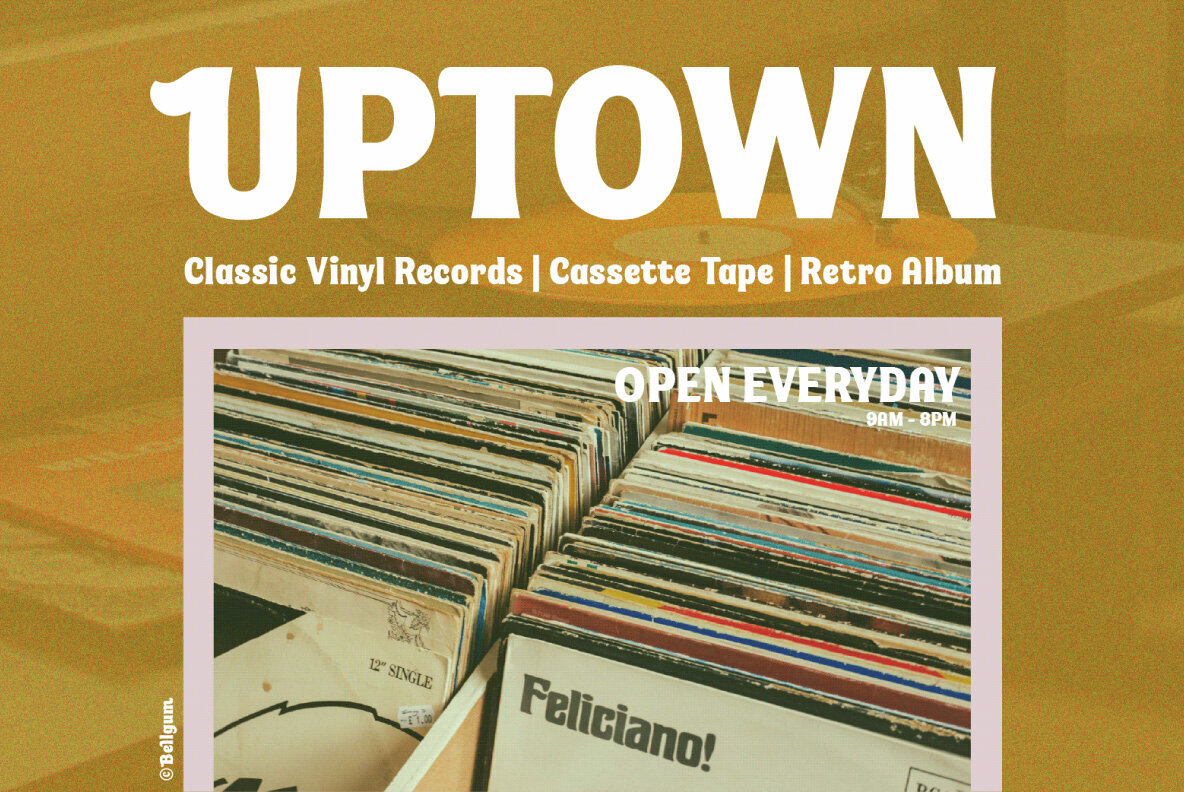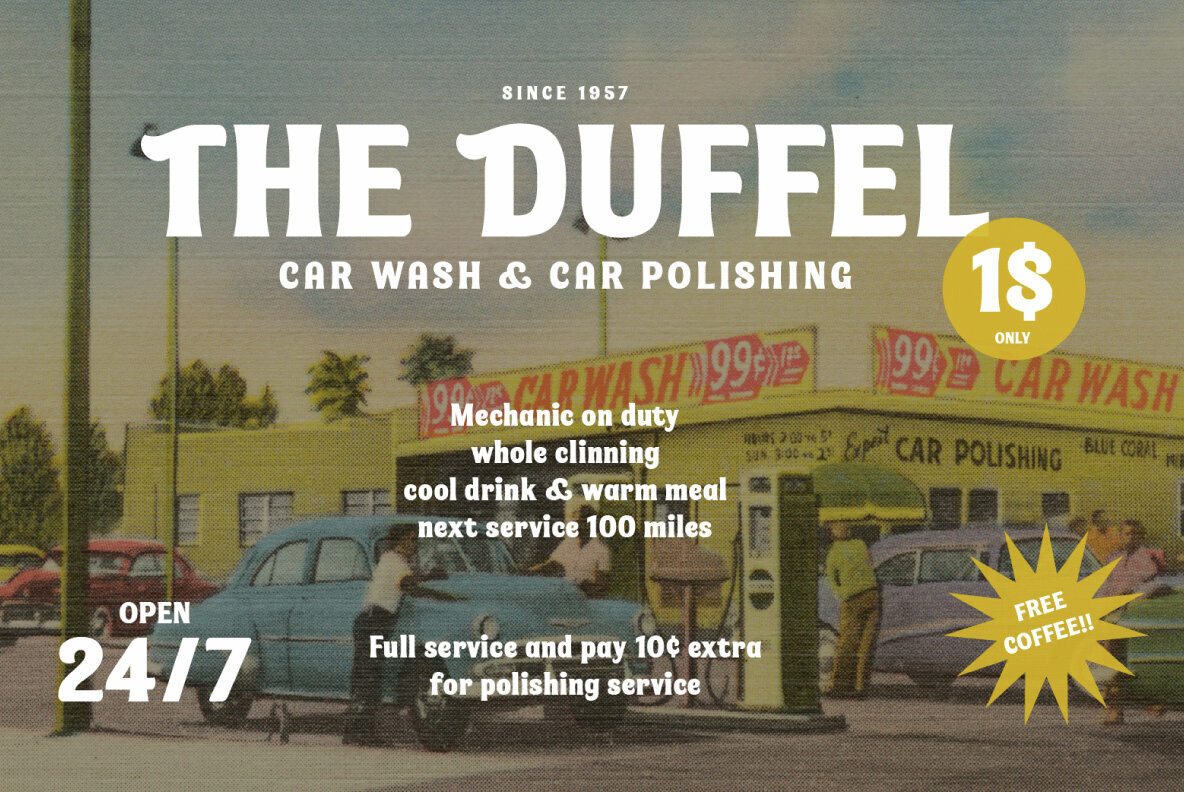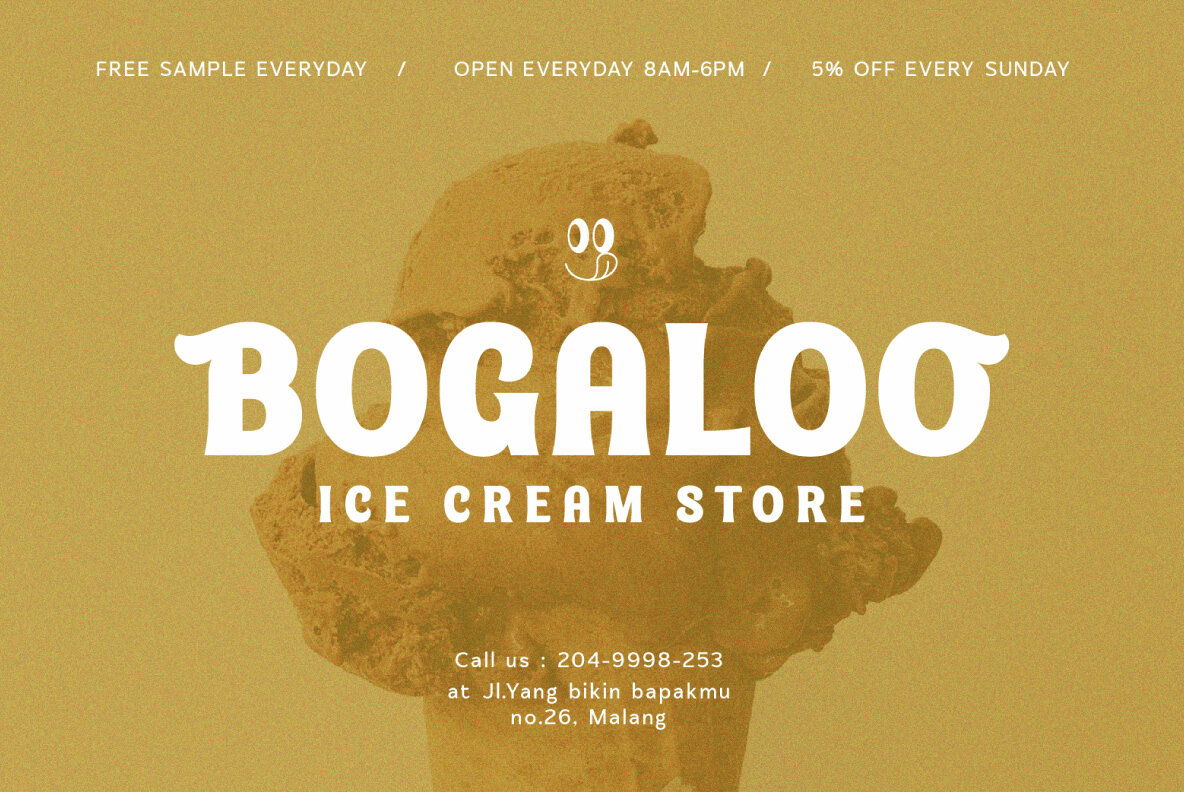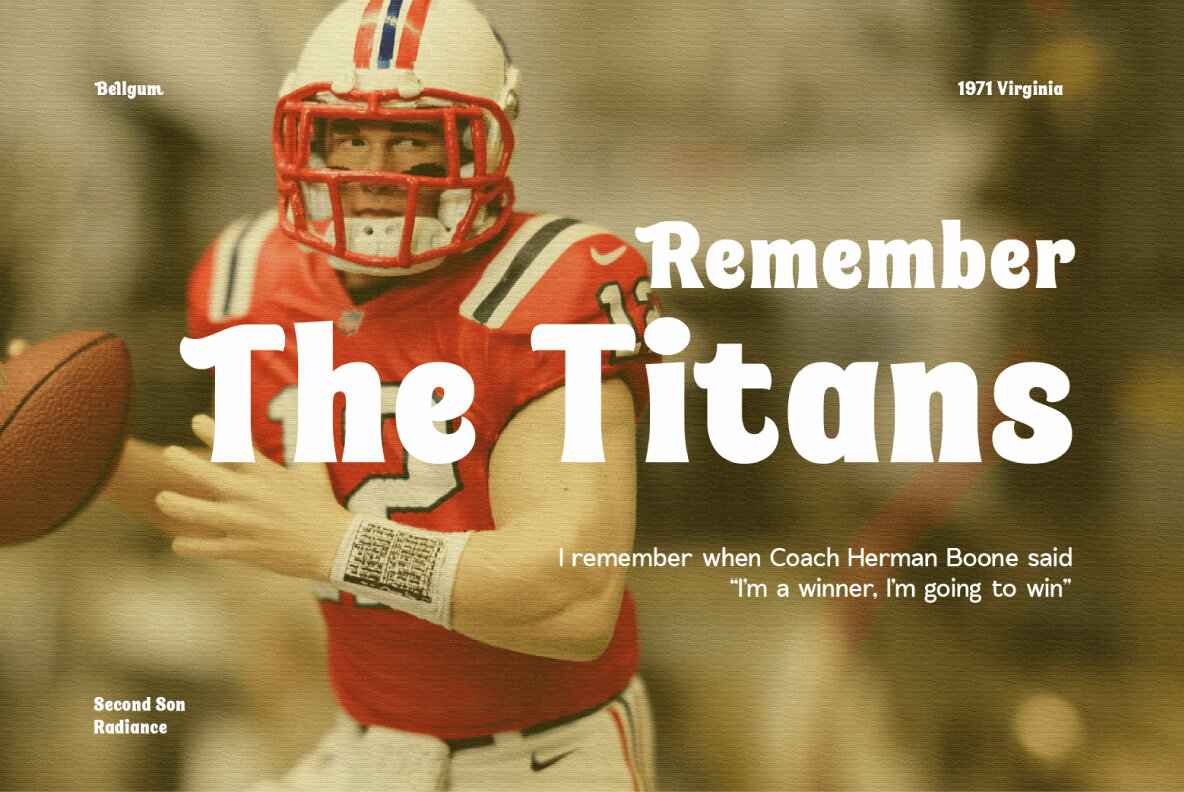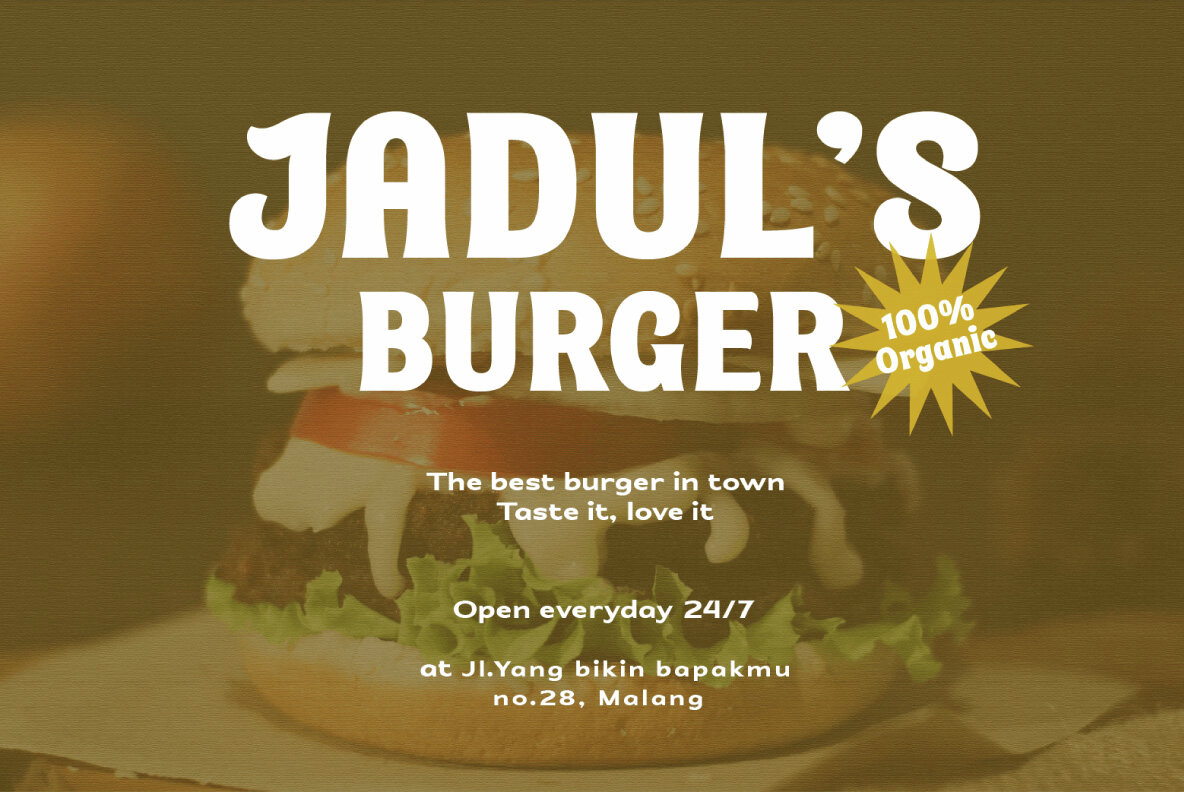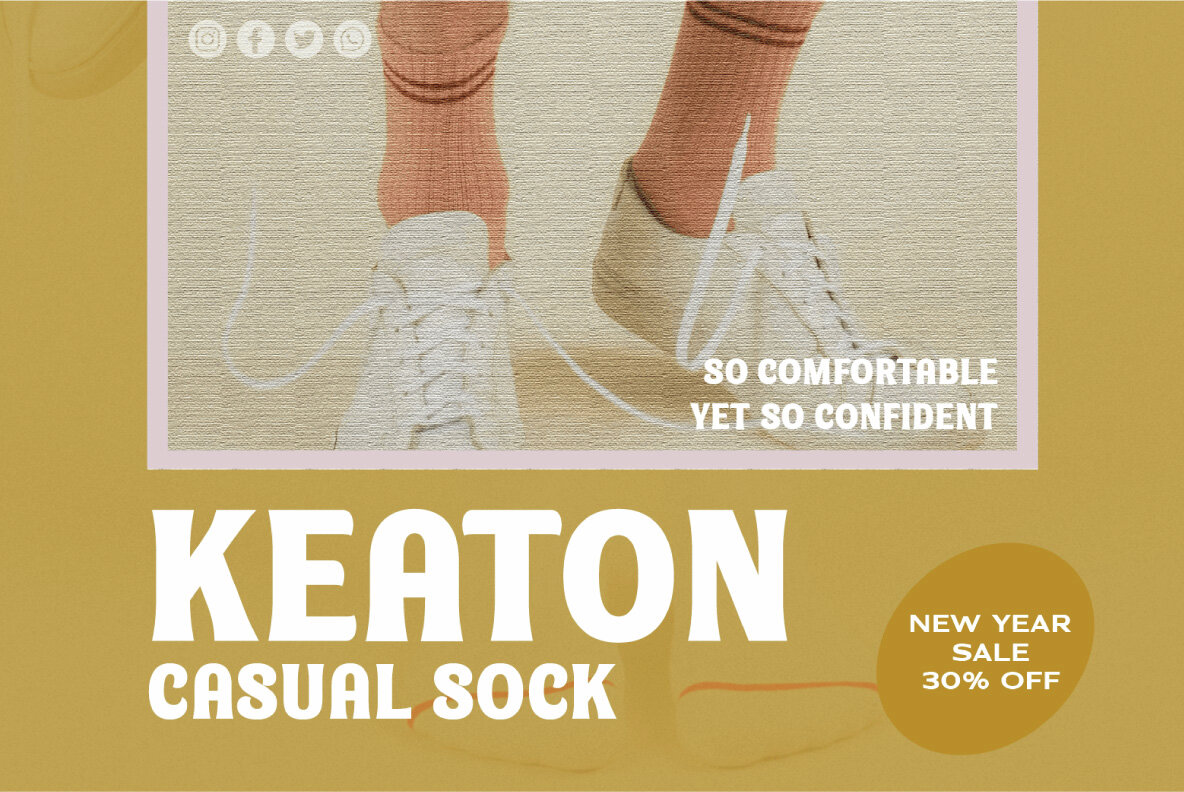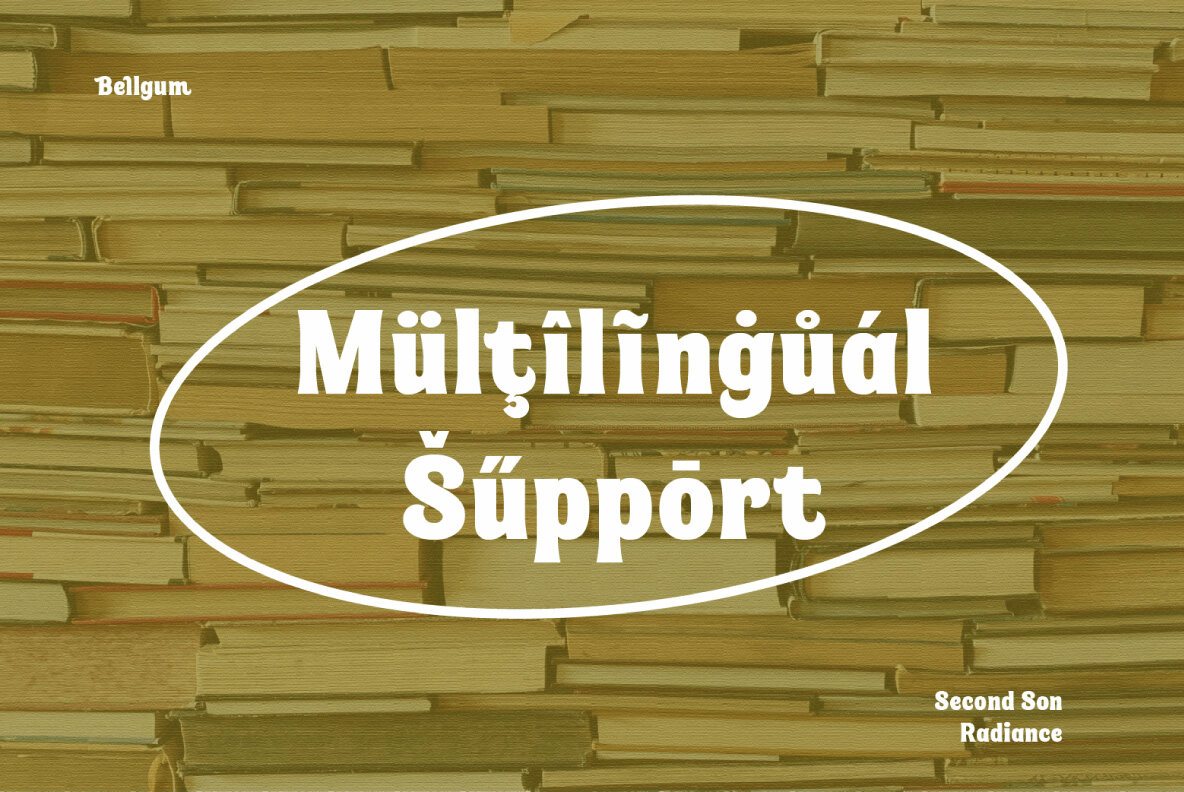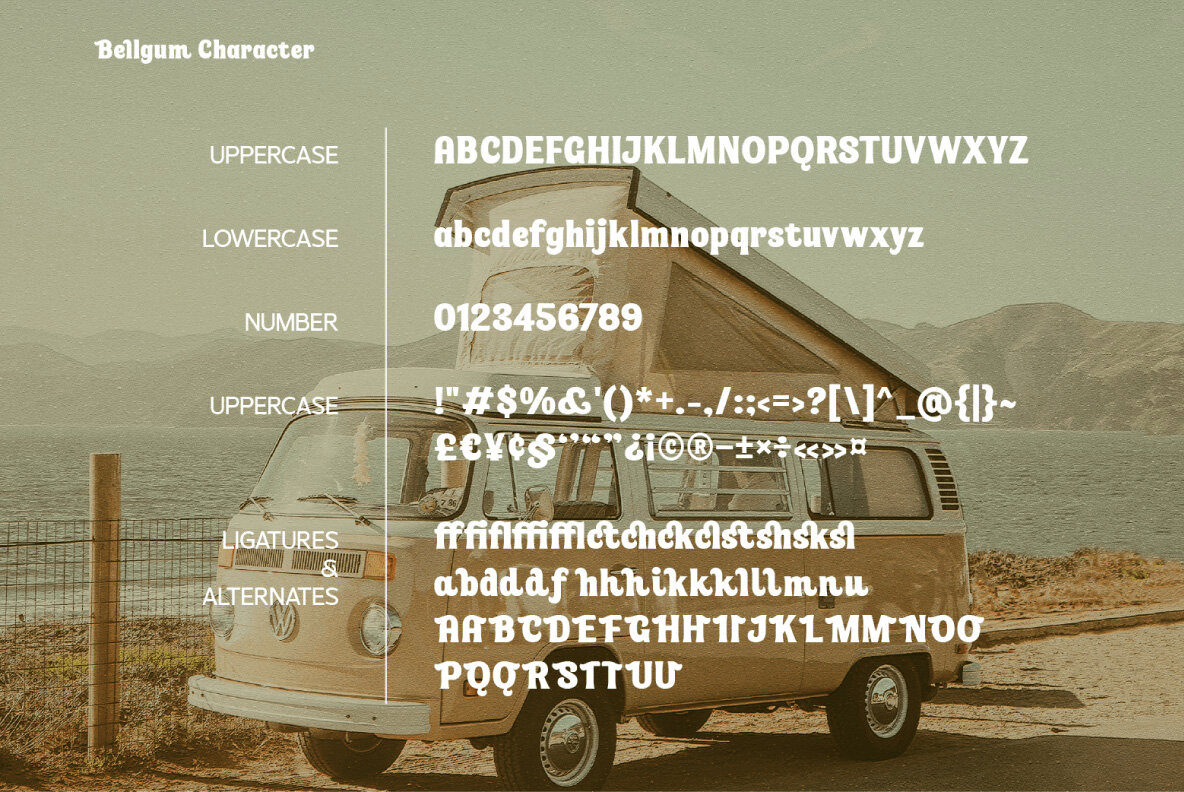
SS Bellgum Font
Bellgum Regular
Bellgum is a bold vintage display font infused with retro 80s vibes, making it an excellent choice for various creative projects. Ideal for crafting retro-themed logos, classy posters, and 80's magazine layouts, this font adds a timeless touch to branding for FnB establishments, art galleries, and boutiques. Its versatility also shines in stationery, blog design, modern advertising, invitations, art quotes, home decor, book covers, and special events.
The Bellgum font offers a comprehensive set of features including basic Latin alphabet support, numbers, punctuation, and Opentype features. It includes ligatures and alternate characters, alongside being PUA encoded for easy access. Multilingual support ensures that your designs can reach a global audience. Bellgum is not just a font; it’s a tool to bring a unique vintage appeal to your daily design projects.